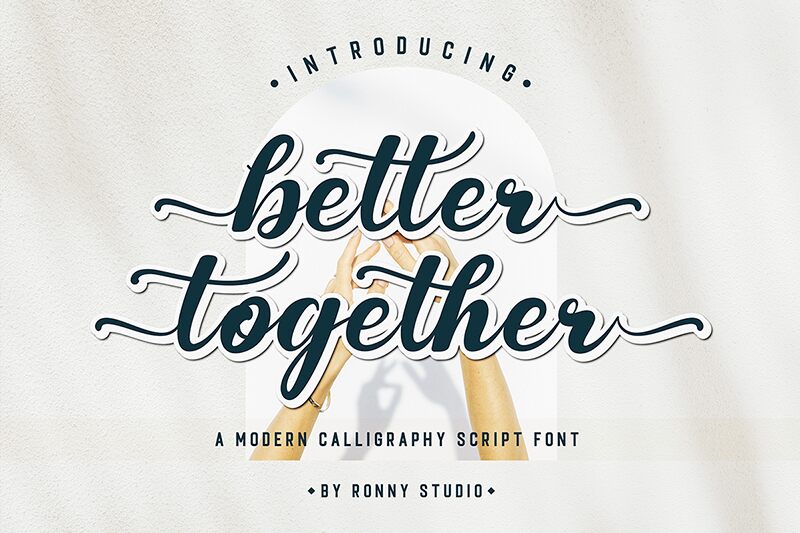
Better Together
Better Together is a bold, modern calligraphy font designed by Ronny Rizki Jaya. It's perfect for projects needing an elegant yet modern look, such as wedding invitations, greeting cards and social media posts.